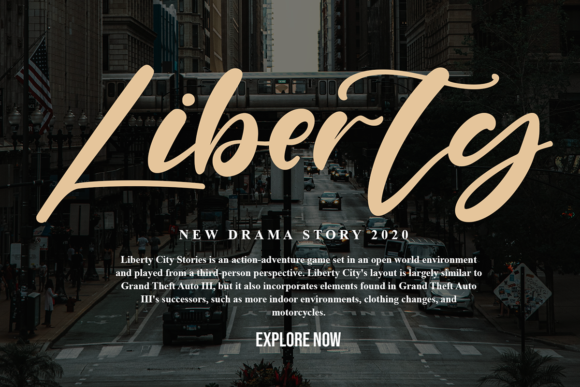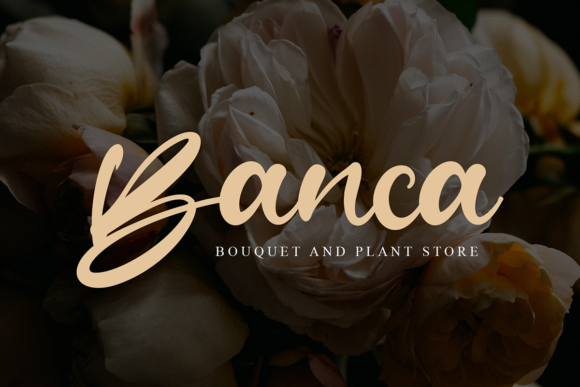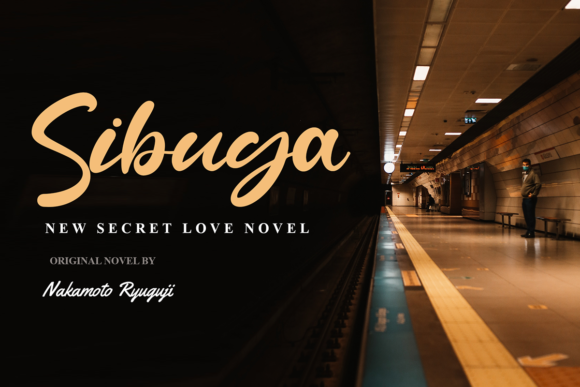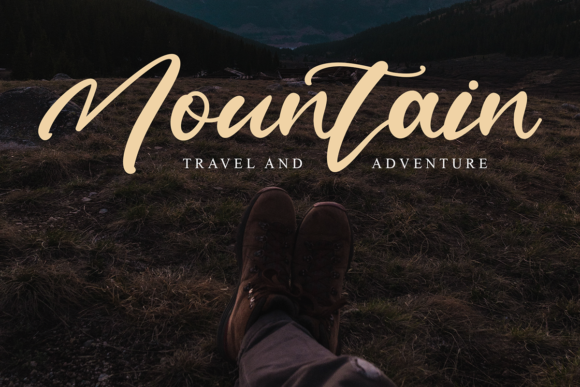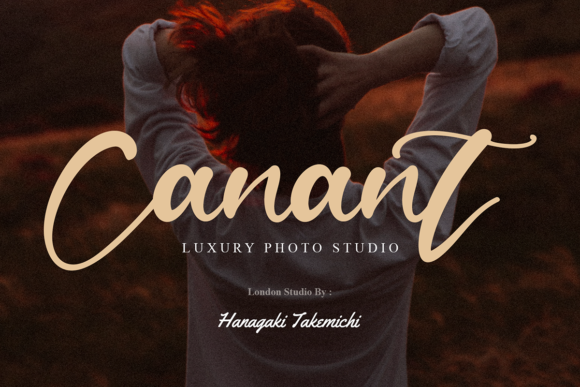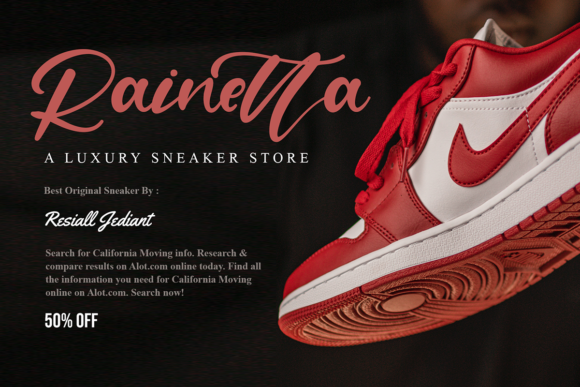
Introduction to Maretta Font
Have you ever stumbled upon the perfect font for a design project, and it instantly elevates your entire creative vision? For many designers, this is the moment when all the hard work and brainstorming come together in perfect harmony. For those who’ve experienced this thrill, we’re about to introduce you to a new favorite: Maretta Font.
Maretta Font is an alluring and chic script font that brings a touch of elegance to any design. With its high-quality, handwritten feel, it’s perfect for adding a personal and intimate touch to wedding invitations, thank you cards, quotes, and logos. Whether you’re working on a free download project or a paid design resource, Maretta Font is sure to become a valuable asset in your design arsenal.
As a design resource, Maretta Font offers a transparent background, allowing you to easily customize and manipulate the design to suit your creative project needs. With its versatility and timeless charm, Maretta Font is sure to become a go-to font for designers looking to add a handwritten touch to their designs.
Key Features of Maretta Font
- Includes multiple font styles and weights, allowing for versatile use in various design applications.
- Designed with a modern aesthetic, featuring clean lines and a minimalist approach, ideal for contemporary designs.
- Includes a comprehensive character set, covering a wide range of languages and characters, making it suitable for global projects.
Honest Review: Maretta Font
As a designer, I’m always on the lookout for high-quality design resources that can elevate my creative projects. Recently, I had the chance to try out the Maretta Font, and I’m excited to share my honest review with you.
- ✨ High-quality font design: The Maretta Font is beautifully crafted with clean lines, elegant curves, and a transparent background that makes it perfect for creative projects.
- ✨ Wide range of font styles: The font family includes multiple styles, from bold to italic, which gives designers plenty of options for customizing their designs.
- ⚠️ Limited character set: The font family is relatively small, with only 26 characters available, which may limit its use in certain design contexts.
Overall, the Maretta Font is a great addition to any designer’s toolkit. While it may have some limitations, its high-quality design and wide range of font styles make it a valuable resource for creative projects. If you’re looking for a free font that’s perfect for personal or small-scale use, the Maretta Font is definitely worth checking out.
Maretta Font is a high-quality design resource ideal for creative projects that require a touch of elegance and sophistication. With its transparent background, this font can be easily integrated into various design applications.
Tips for Getting the Most Out of Maretta Font
To get the most out of Maretta Font, try pairing it with other elegant fonts and using it in combination with high-quality images. This will create a visually appealing design that is sure to impress.
Common Use Cases for Maretta Font
Maretta Font is ideal for use in wedding invitations, branding materials, and other creative projects that require a touch of sophistication and elegance. Its transparent background makes it easy to use in a variety of design applications.